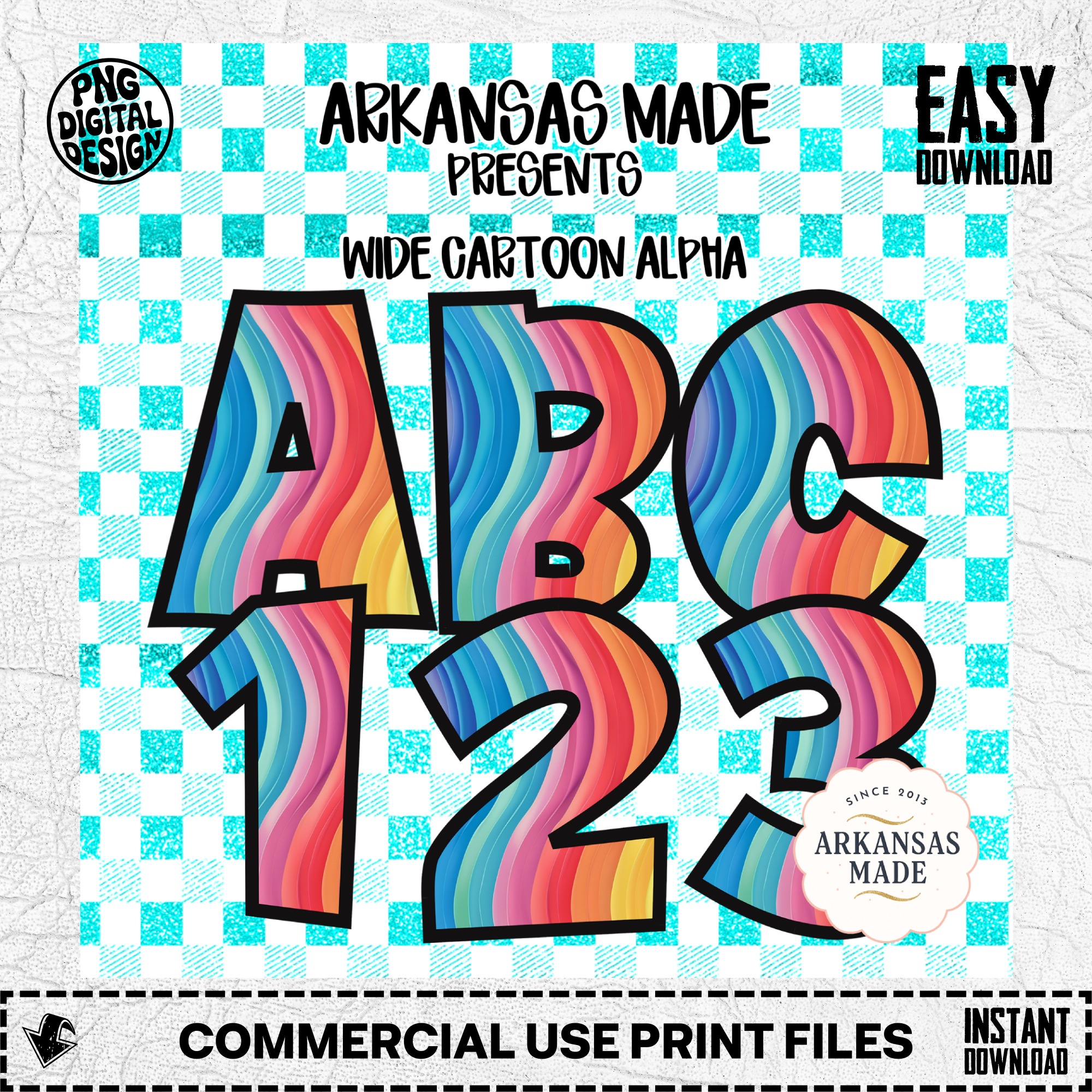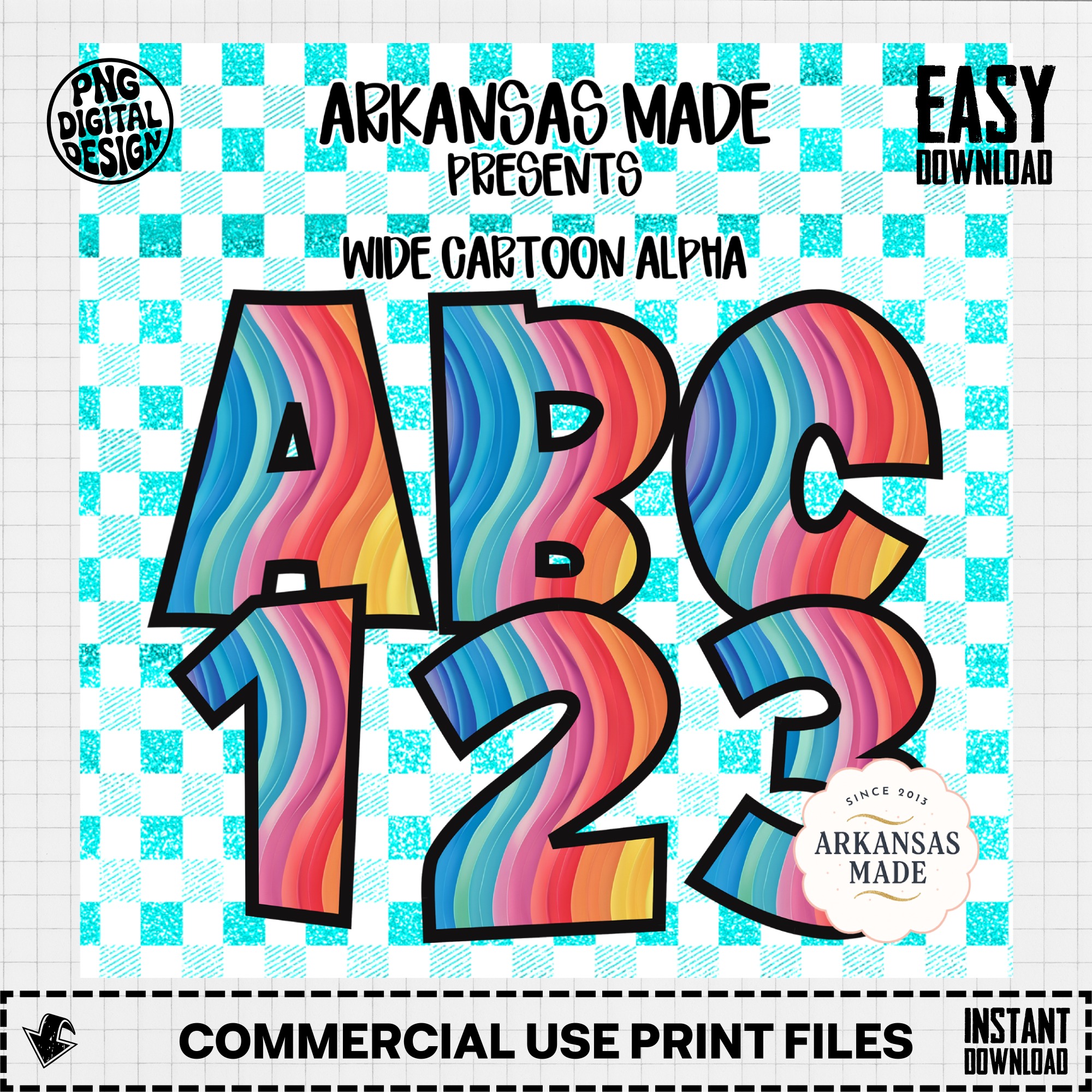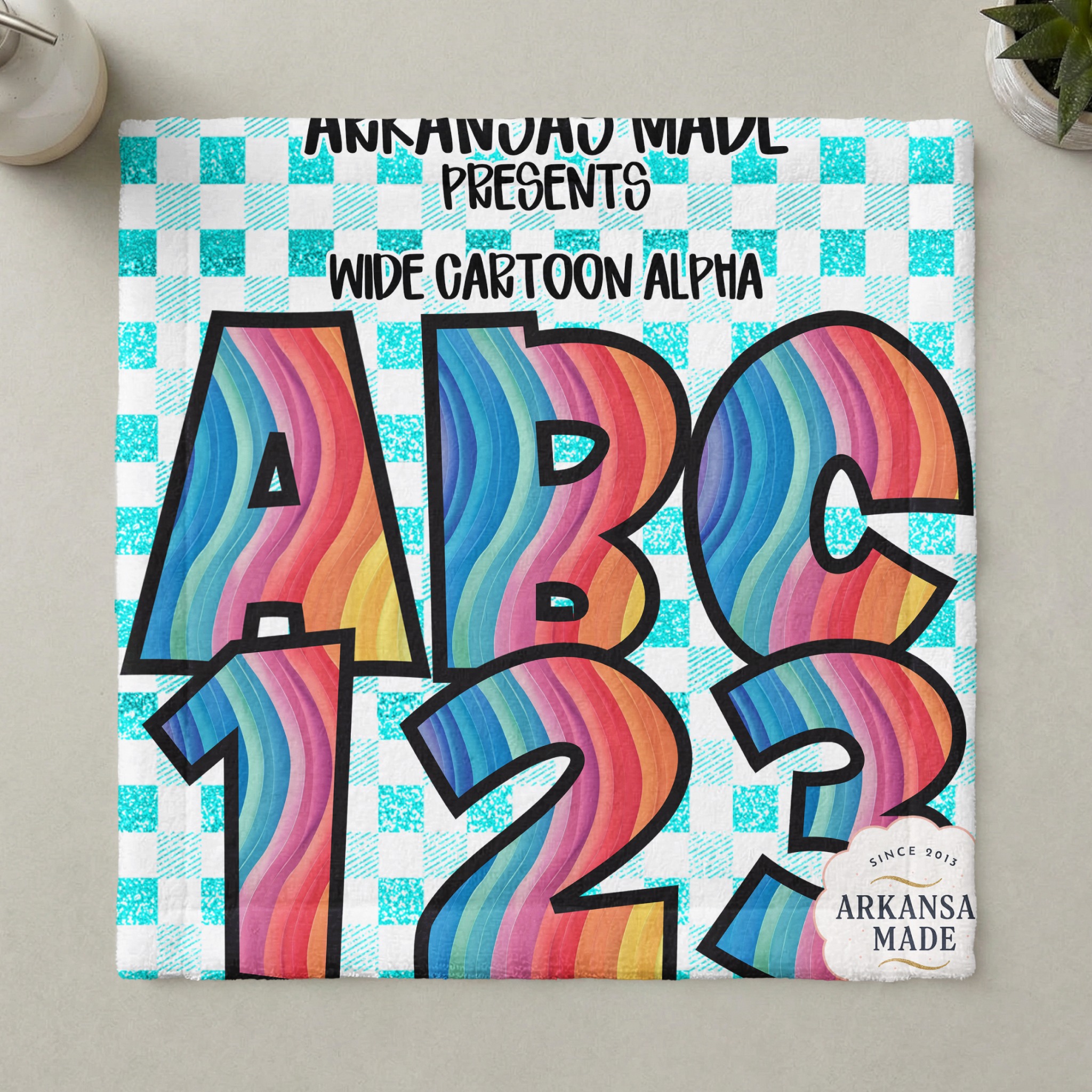
Rainbow Wavy Alpha Digital Download Set | Colorful Cartoon ABC 123 Letters Numbers Font PNG for Kids Crafts & Teacher Decor
Unleash vibrant creativity with our Rainbow Wavy Alpha Digital Download Set! Perfect for personalized designs, kids’ crafts, and lively classroom decor. This playful cartoon alphabet and numbers collection features a unique faux layered gradient effect, set against a fun teal faux glitter checkered background. Ideal for teachers creating engaging classroom materials, parents personalizing party decorations, or crafters designing unique sublimation prints. Instantly download these colorful letters and numbers to add a cheerful touch to any project, from digital scrapbooks to custom apparel.